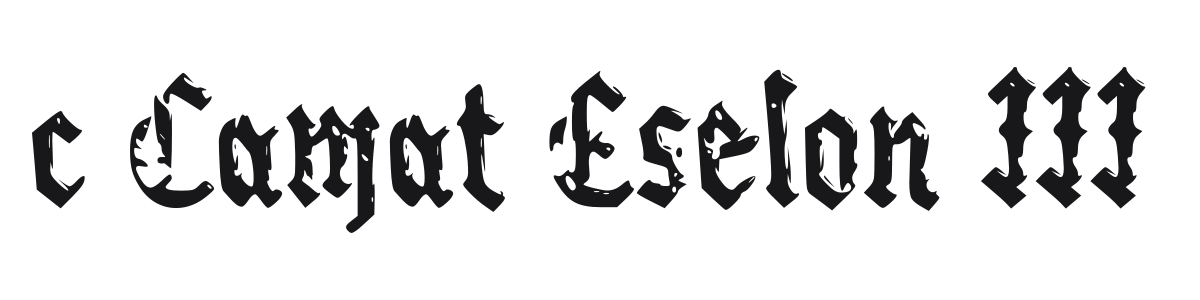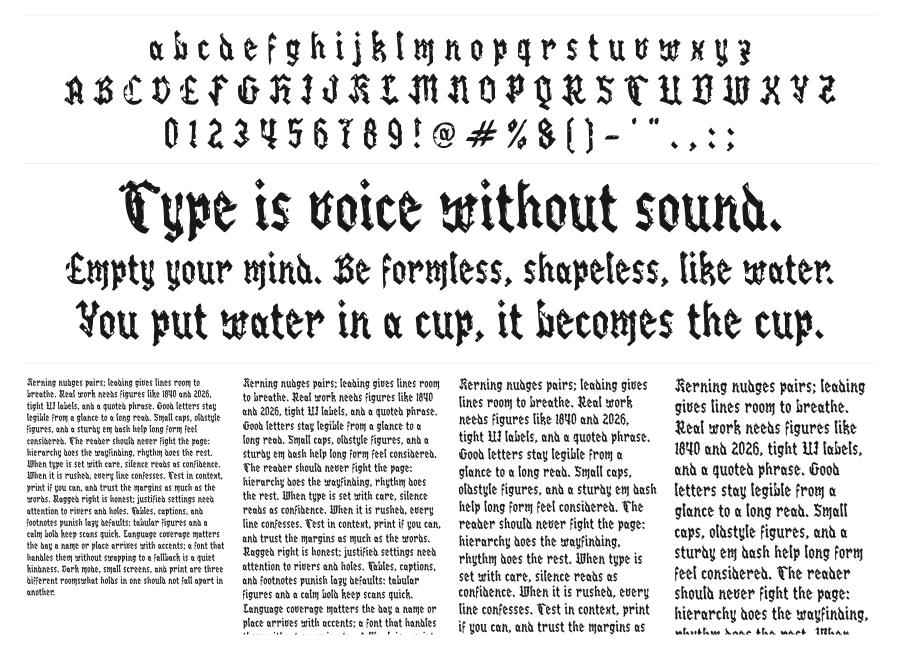
c Camat Eselon III
Camat Eselon III is a heavy gothic blackletter layered with aggressive distressing and ink erosion. The broken, chipped strokes push it well beyond traditional blackletter into raw grunge territory. It reads loud at large sizes and carries a distinctly underground, metal-adjacent energy.